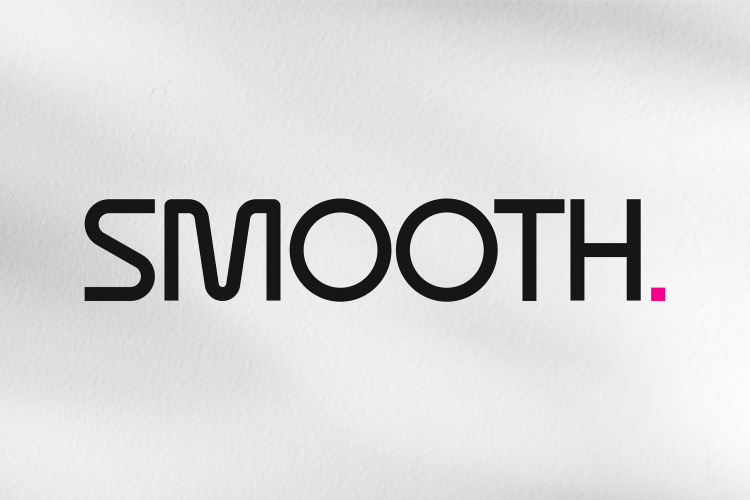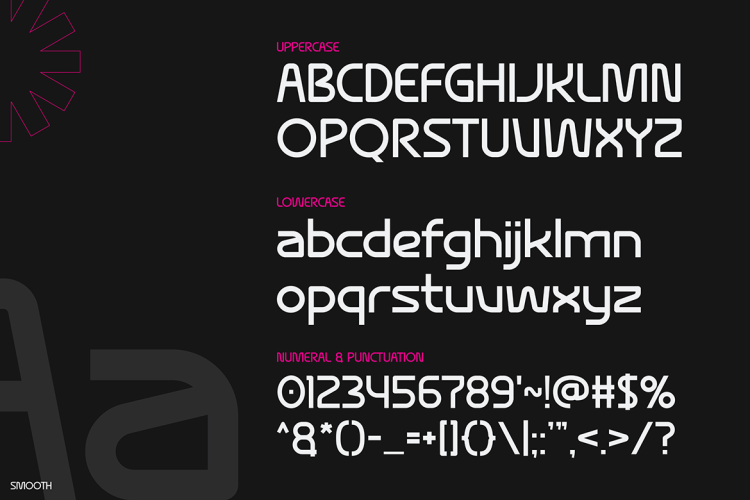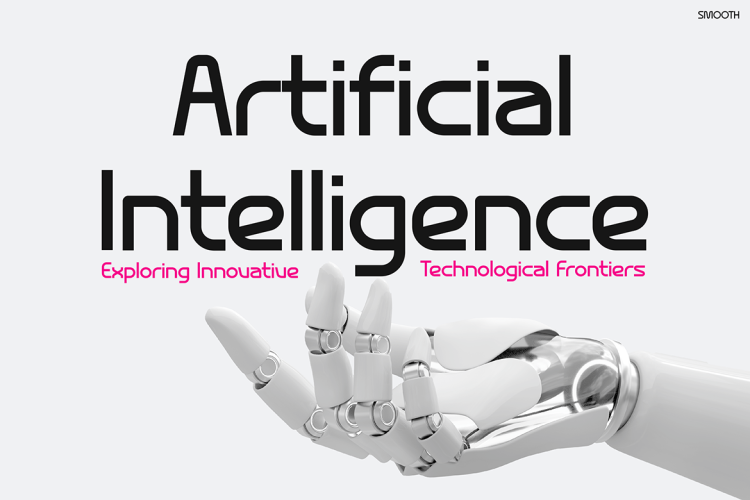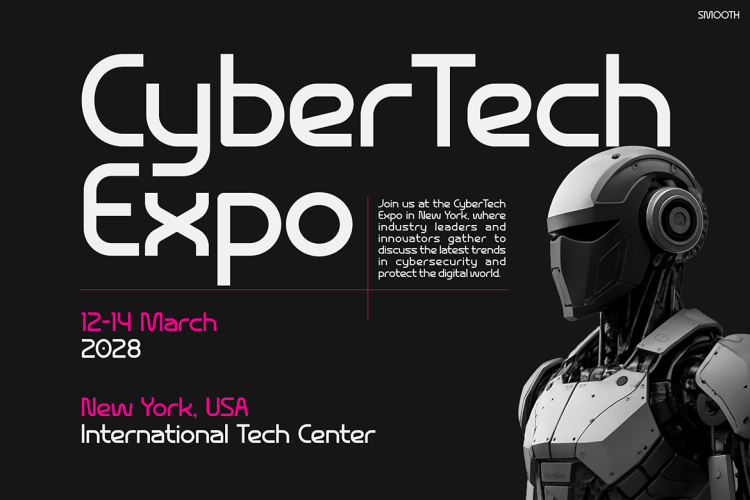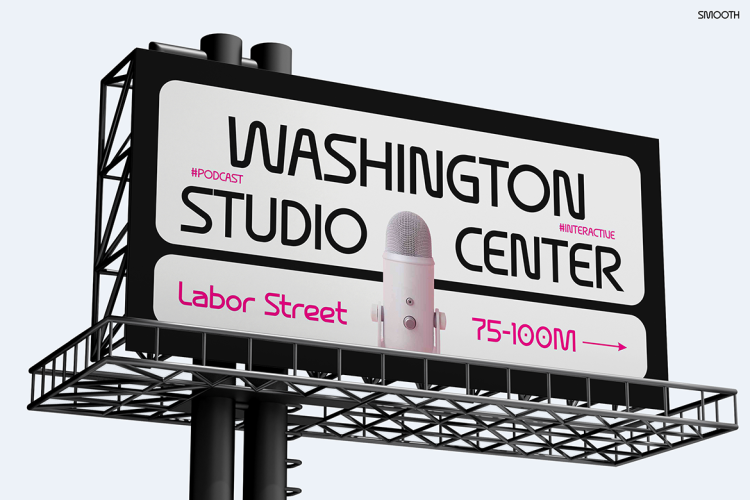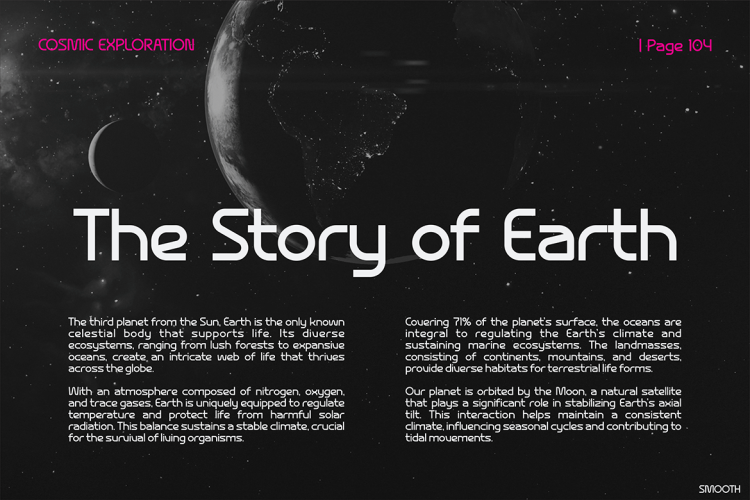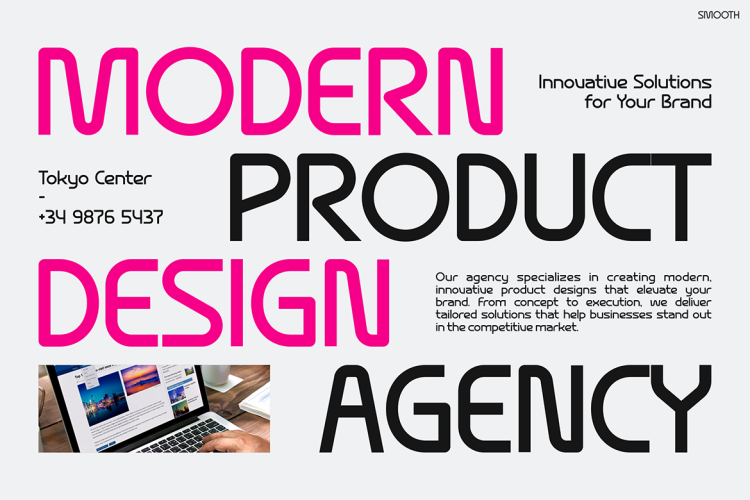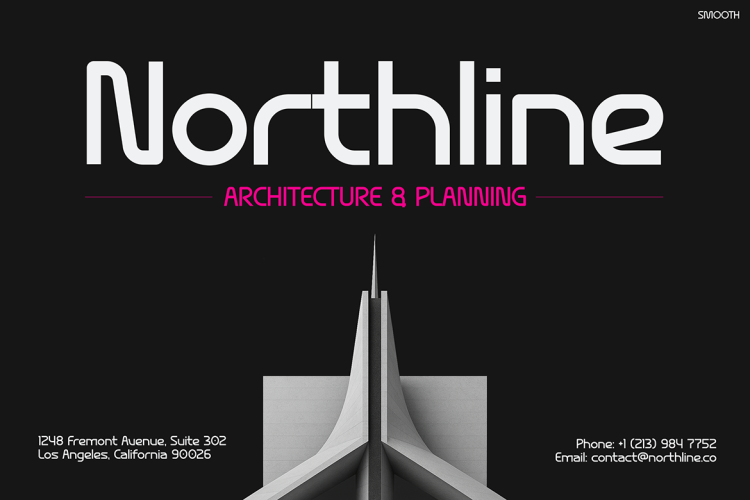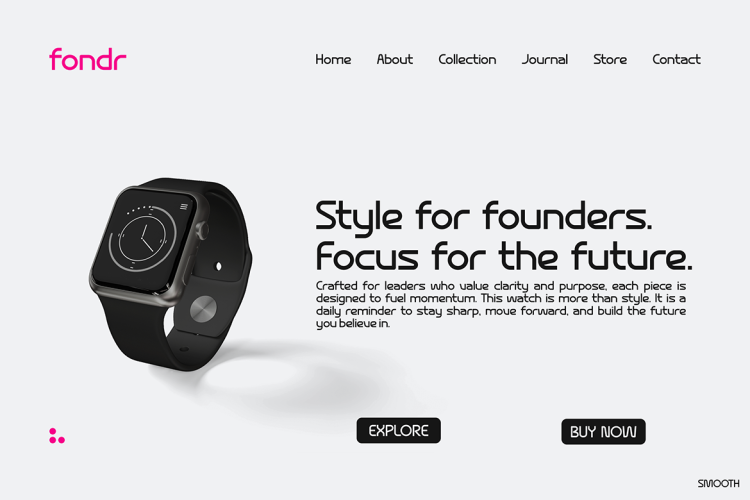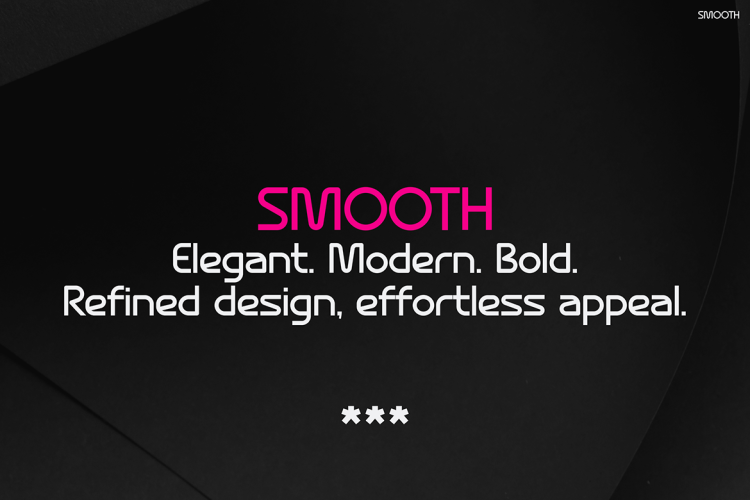
Futuristic Font SMOOTH โ Sleek, Modern, and Ready for Tomorrow
Futuristic Font SMOOTH delivers a new level of modern elegance through its clean lines, precise geometry, and smooth futuristic curves. Each letter showcases clarity and innovation, giving your designs a bold and advanced visual identity. The shapes flow with intention and confidence, allowing your text to look refined without losing personality. Moreover, the carefully designed proportions create a strong rhythm that feels fresh, stylish, and distinctly modern.
This typeface blends minimalism with a forward-looking aesthetic, which helps your message stand out with sharp sophistication. Every stroke supports clear communication, and every curve adds a touch of future-inspired energy. Because SMOOTH maintains high readability, it performs beautifully in headlines, branding materials, product showcases, and digital interfaces. Its sleek structure strengthens your layout and brings a polished character to both print and screen applications.
Perfect for Creatives, Tech Brands, and Modern Businesses
Futuristic Font SMOOTH empowers professionals to express innovation and modern identity. Tech companies can use it for branding, UI design, AI-related visuals, robotics presentations, and digital campaigns. Its clean look communicates intelligence and progress, making it perfect for forward-thinking brands.
Designers can also rely on SMOOTH for editorial layouts, startup pitch decks, product design concepts, and billboard advertising. The font adapts easily, allowing you to create logos, app interfaces, and promotional materials with a refined and futuristic style. In addition, architecture firms, contemporary fashion brands, and lifestyle companies can apply SMOOTH to project confidence and modern sophistication.
Because the font responds well across different mediums, you can use it for websites, social media graphics, environmental design, and high-end visual identities. It consistently adds a professional and future-ready tone to every project.
Futuristic Font SMOOTH gives you a powerful tool to create visuals that look intelligent, sleek, and timeless. Its modern energy lifts your entire design system, while its futuristic touch helps your brand stand out with confidence. So take the next step in elevating your creative direction and bring sharper style into your work.